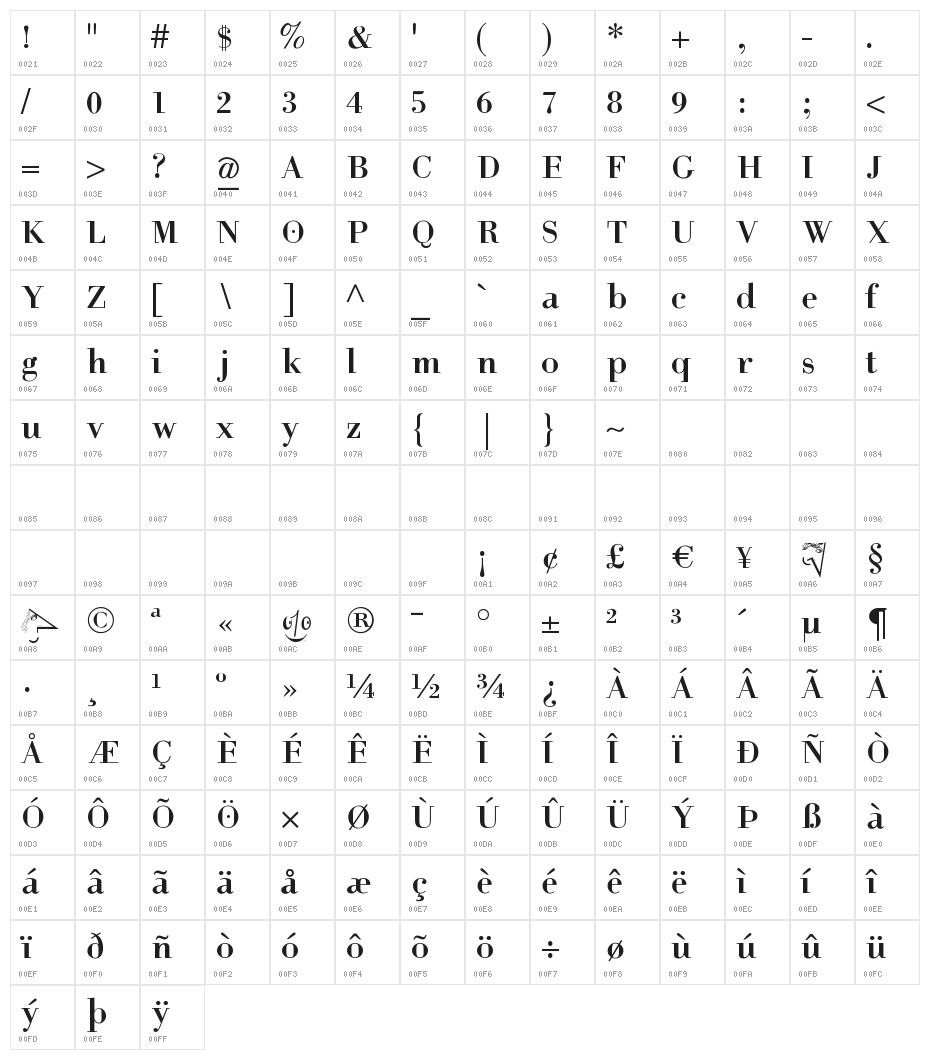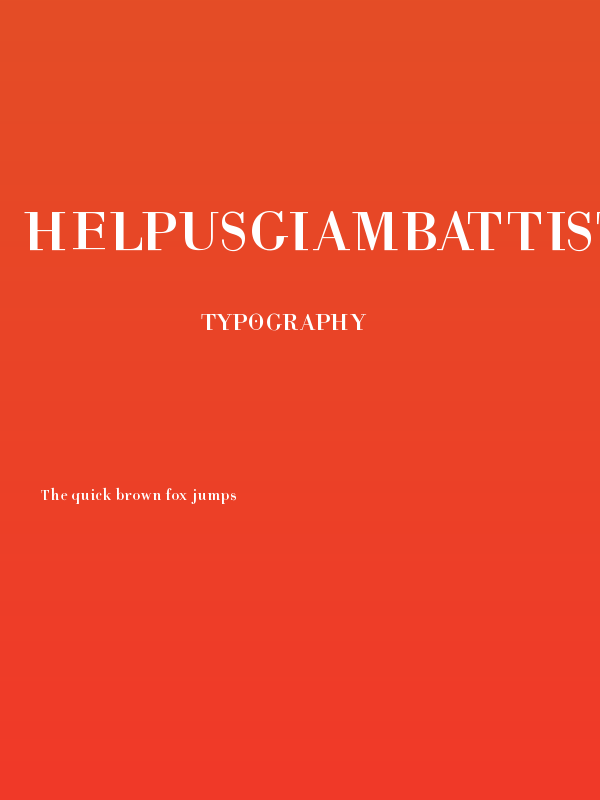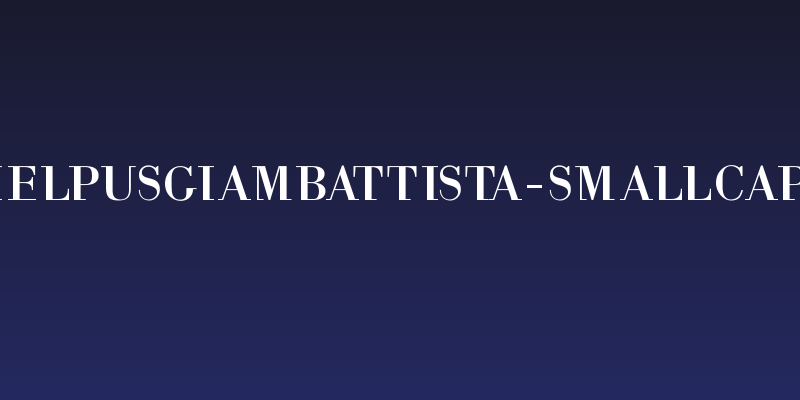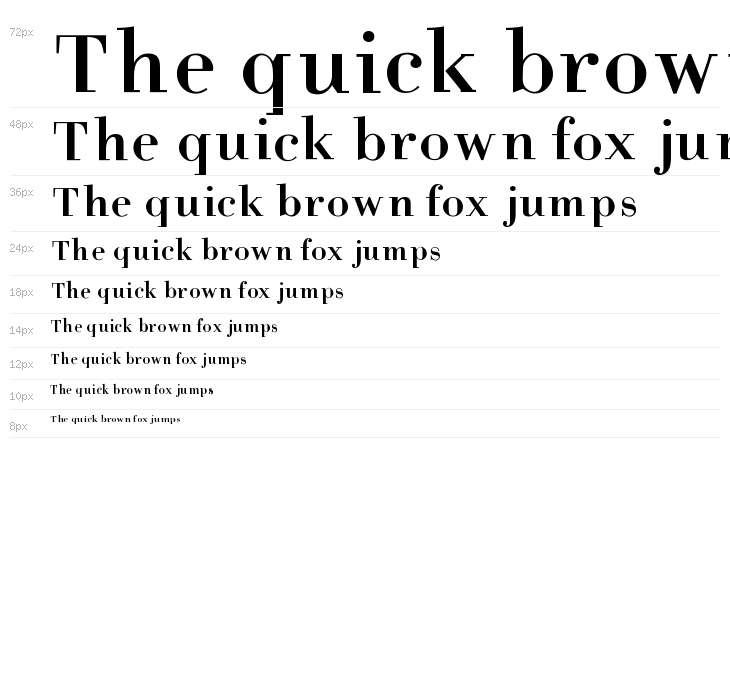
HelpUsGiambattista-SmallCaps Font
HelpUsGiambattista-SmallCaps Description
This font exhibits a classic serif style with a refined and elegant appearance. The uppercase letters are bold and commanding, while the lowercase letters maintain a balanced and harmonious flow. The numerals are clear and distinct, providing excellent readability. The special characters are well-integrated, complementing the overall design. The strokes have a medium contrast, offering a sophisticated look suitable for formal and professional settings. The font's structure is both traditional and versatile, making it ideal for a range of applications.
| Proposed Projects | Ideal for book covers, formal invitations, branding, and editorial design. |